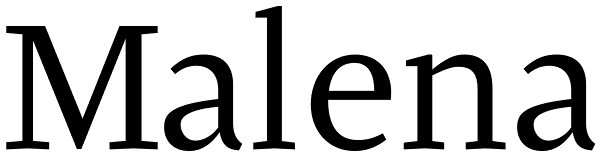
Malena
Malena is a typographic family created by Lentino and Muhafara like a shared working project which integrates both views on typography as a whole. Malena is intended to be used in lengthy texts with a wide range of variables, having a striking...